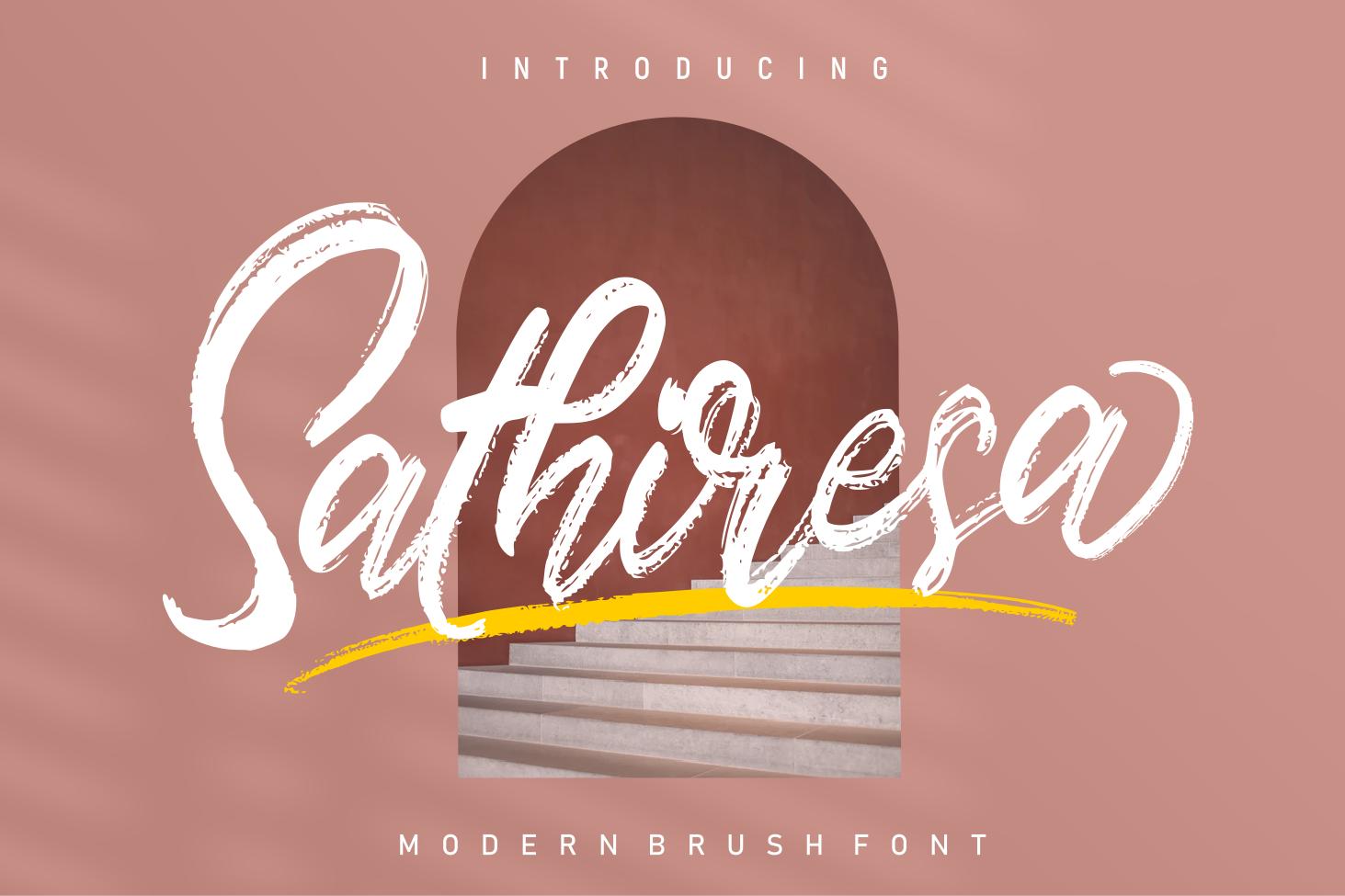
Sathiresa is a splendid script font that looks timelessly elegant and charming. Its cursive style and modern appearance make it a perfect fit for almost any crafty idea!